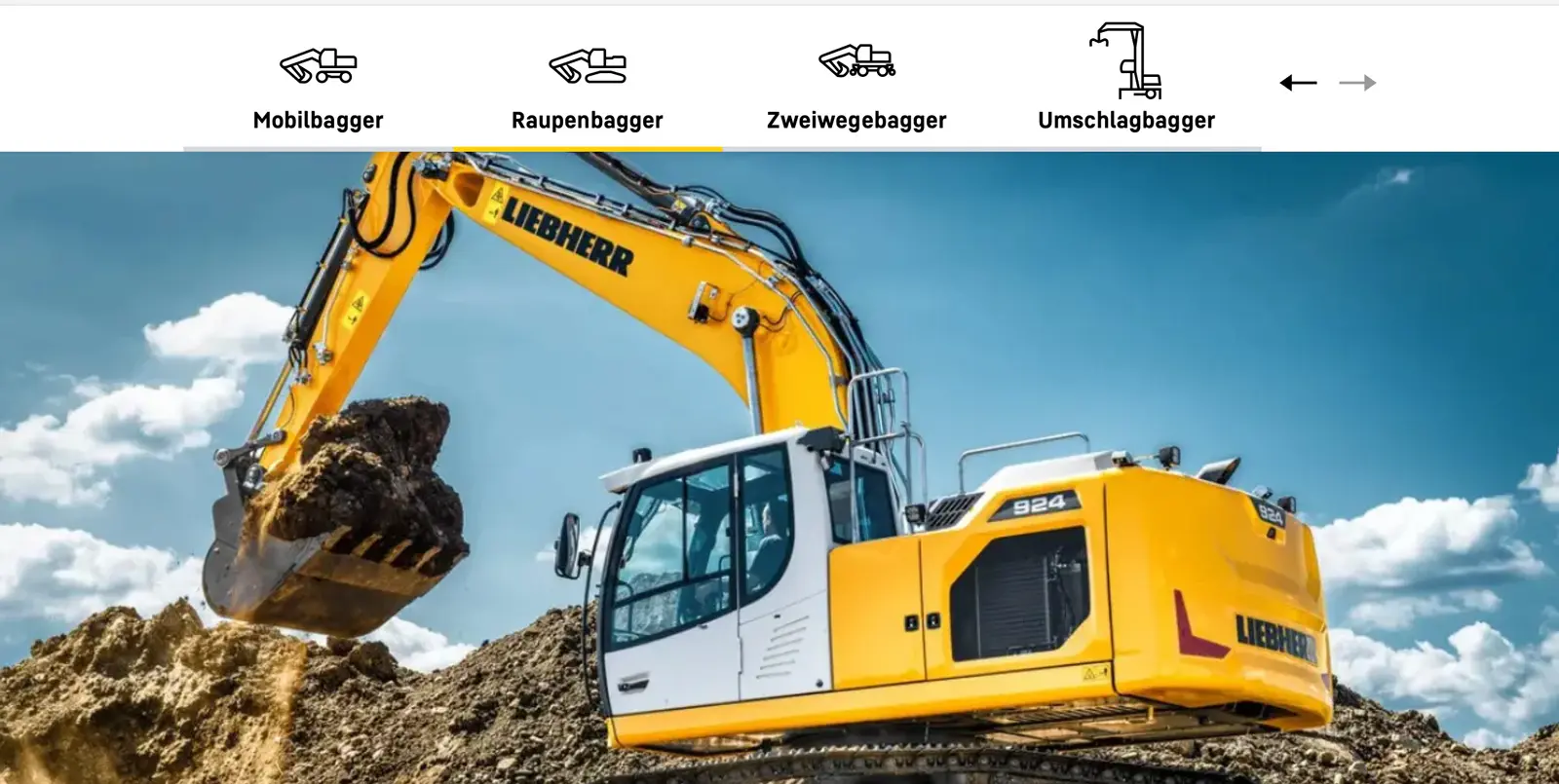
For the fundamentally new corporate design of the Liebherr Group, MetaDesign asked Julia Sysmäläinen to assist in the creation of an icon system that would form a visual unit with the distinct corporate “Liebherr” typeface designed by HVD Fonts – a functional sans-serif with a technical yet humanistic appeal.
The result of this work so far is a set of 700 icons with a clear and consistent, yet personal, style to match the typeface. There is a wide range from technical to abstract and even botanical and zoological visuals. Many of the icons, especially the technical ones, have gone through a lengthy process to improve the clarity and reduce the visual clutter, while at the same time making them instantly distinguishable from other similar items or concepts. As the applications can be diverse, in many cases versions of varying complexity have been created.
Animals – a nice break from so many technical icons
In addition to the standard icons, which are usually fine tuned in two sizes, some machines also need to be shown in large format. These variants have more details, which is important for distinguishing the machines from those of other suppliers.